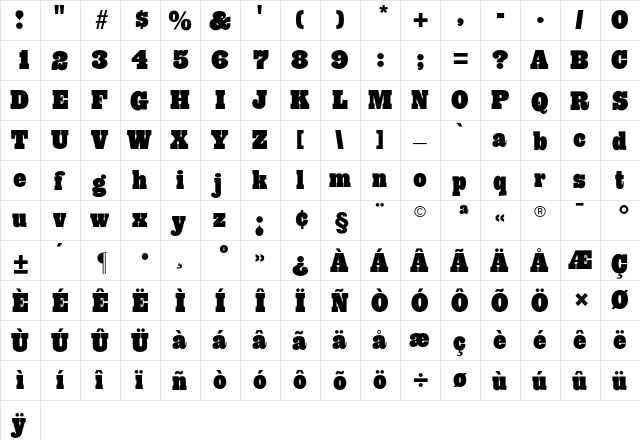
Behemoth CG SemiCond Regular
Design Context for Behemoth CG SemiCond Typeface
Behemoth CG SemiCond takes a measured approach to typography — its balanced proportions and neutral character make it a reliable workhorse for both digital and print work. The condensed width makes it efficient for tight spaces without sacrificing legibility.